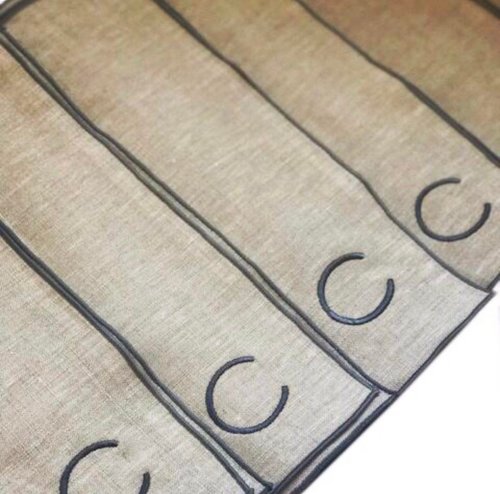
Chase Satin Stitch Embroidery Font
Elevate your crafting projects with the Chase Satin Stitch Embroidery Font, available in seven versatile sizes. This clean, sans serif font is ideal for any monogramming aesthetic, whether for personal gifts or professional projects. All font sizes included in this package fit perfectly within a 4x4 hoop or larger, making it easy to customize.